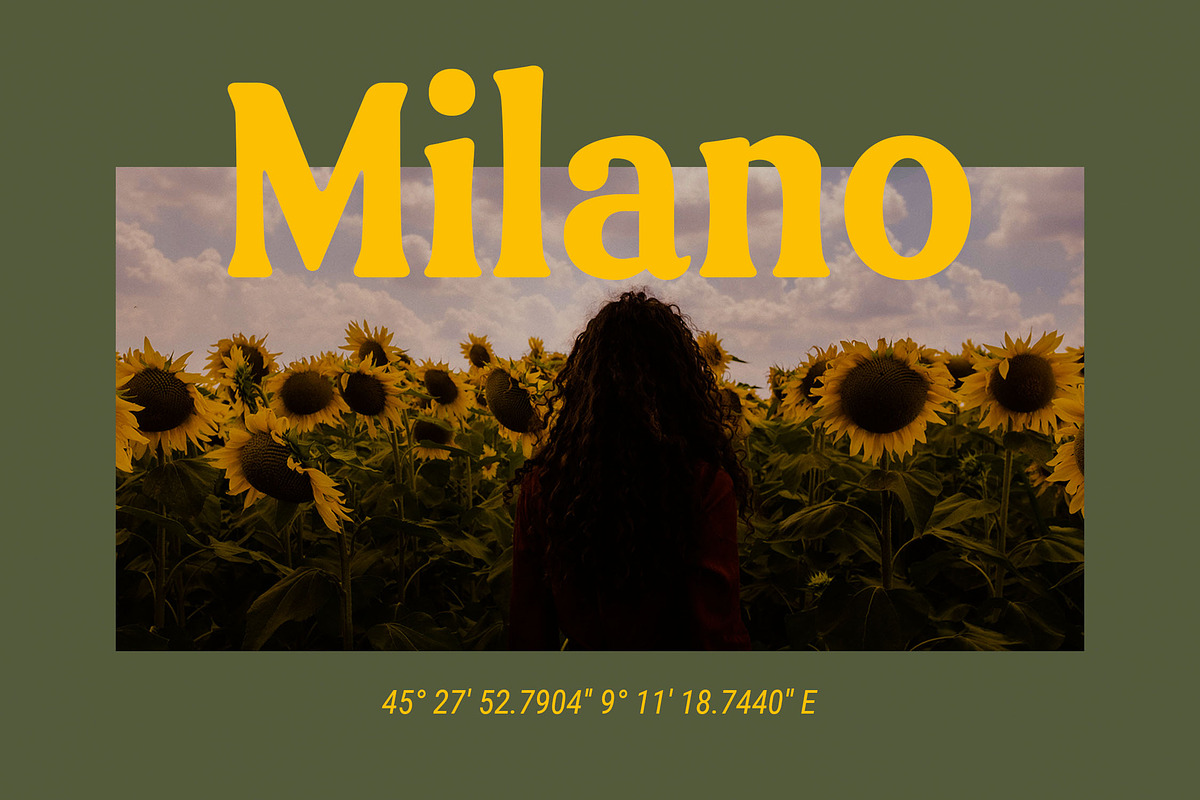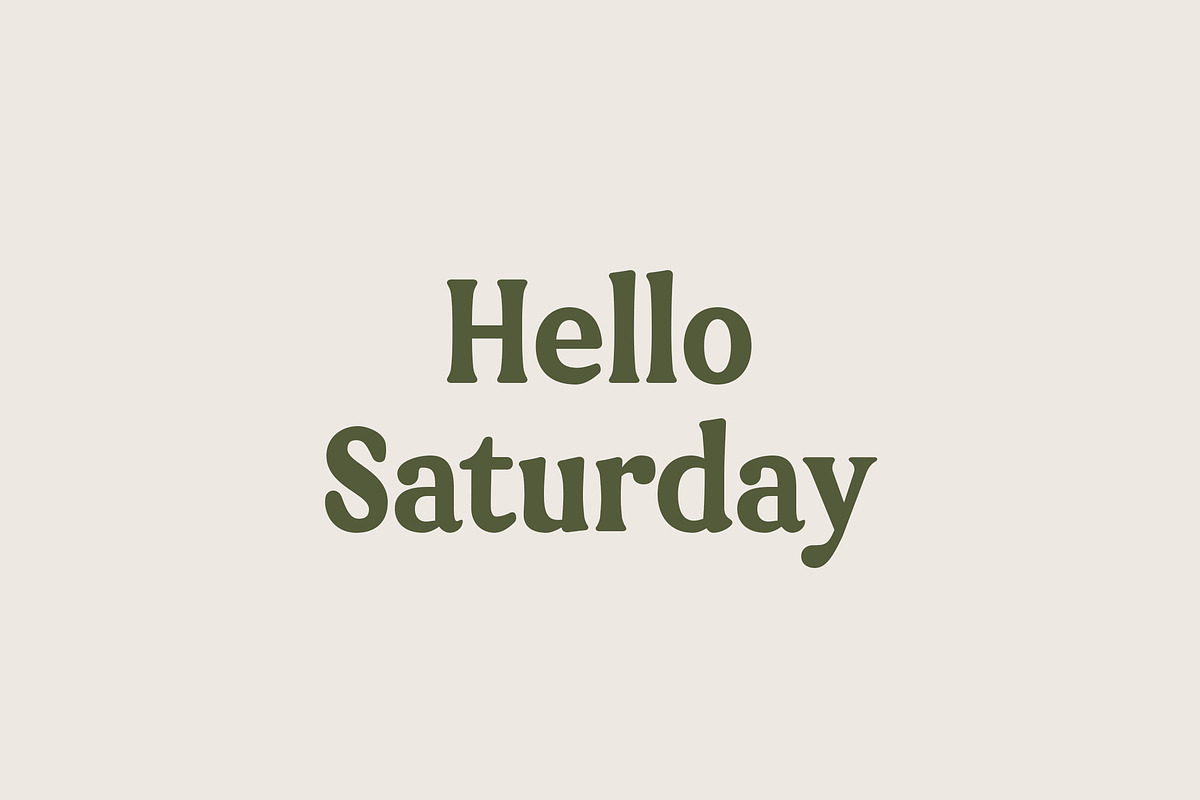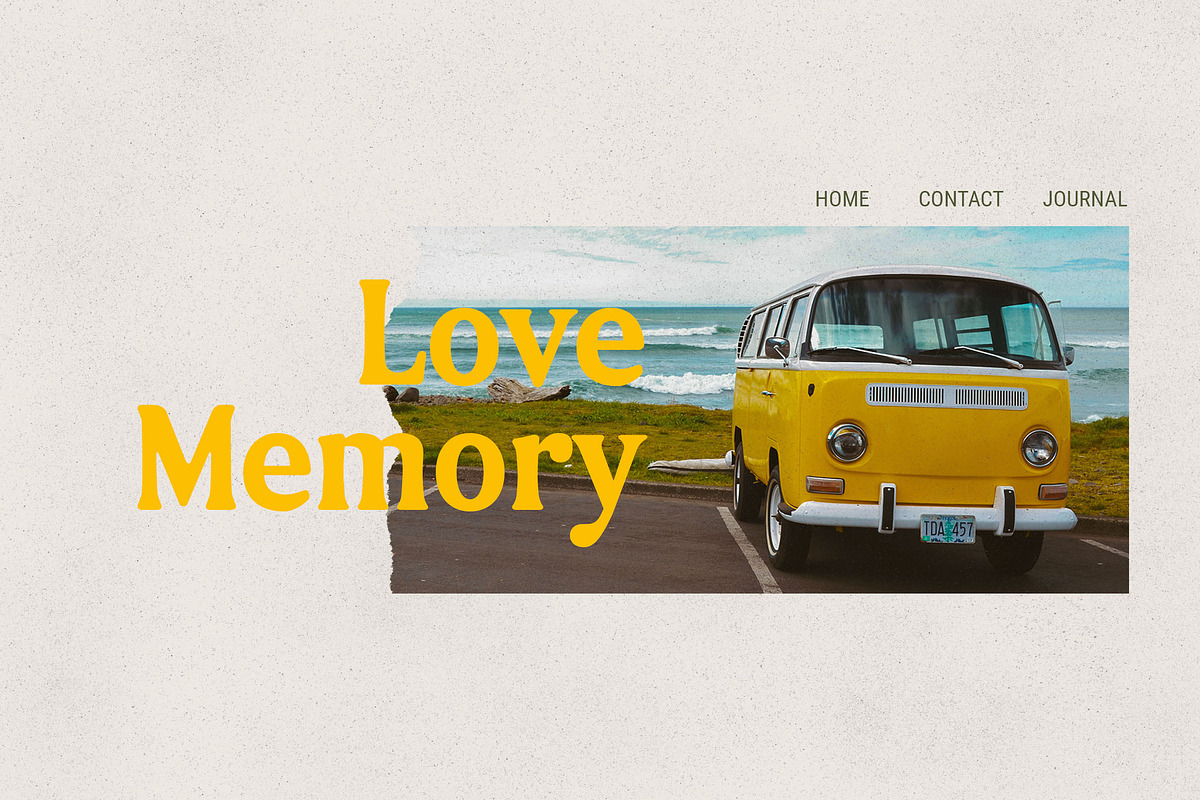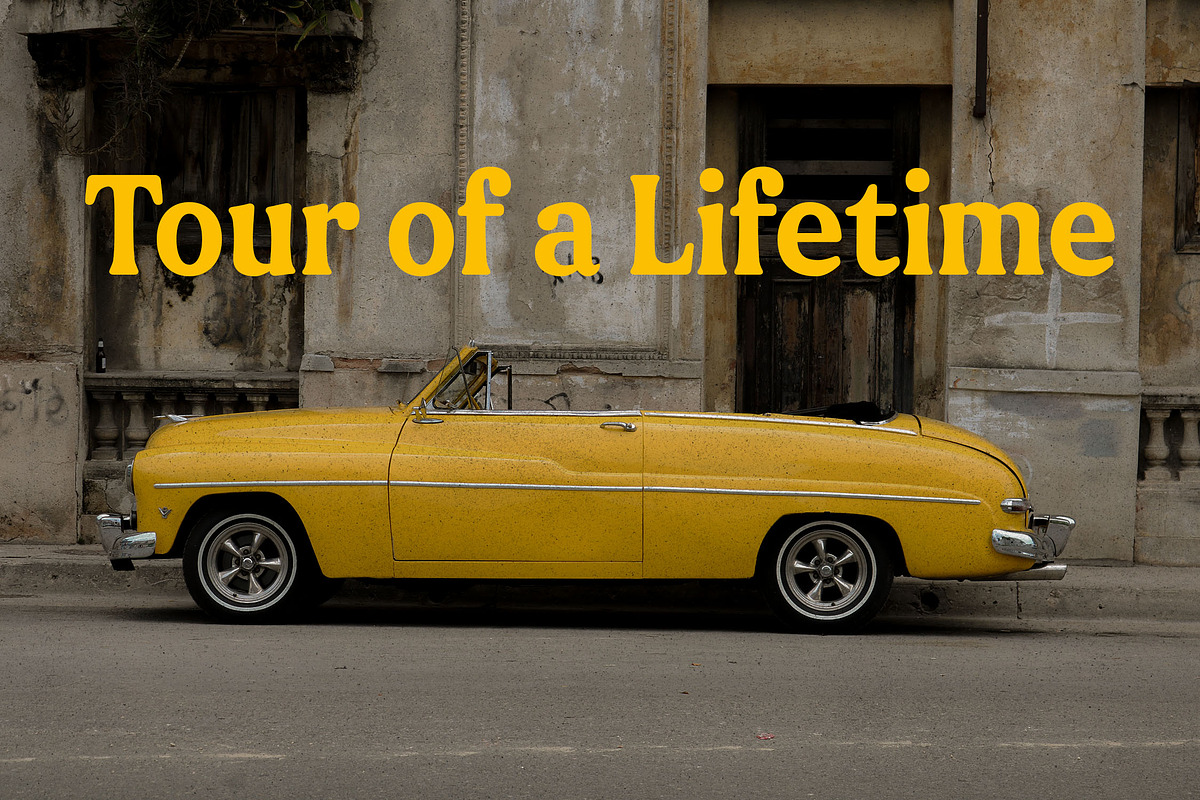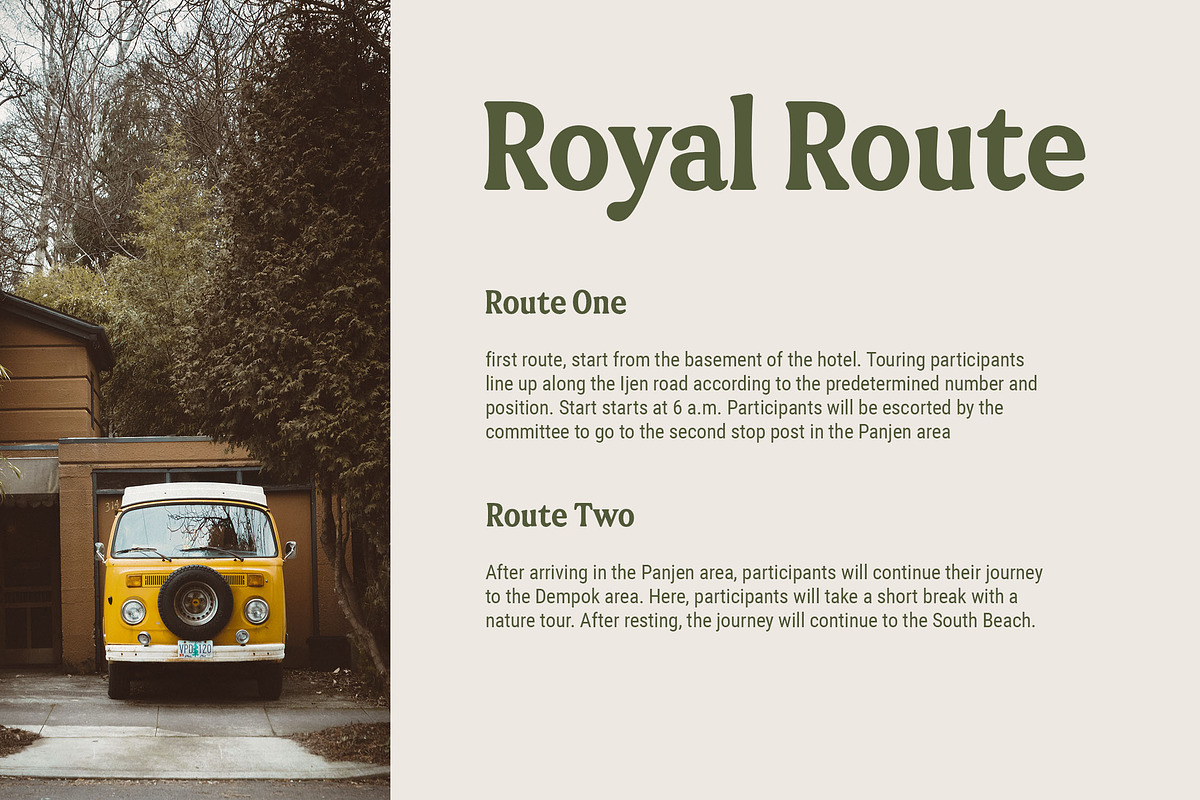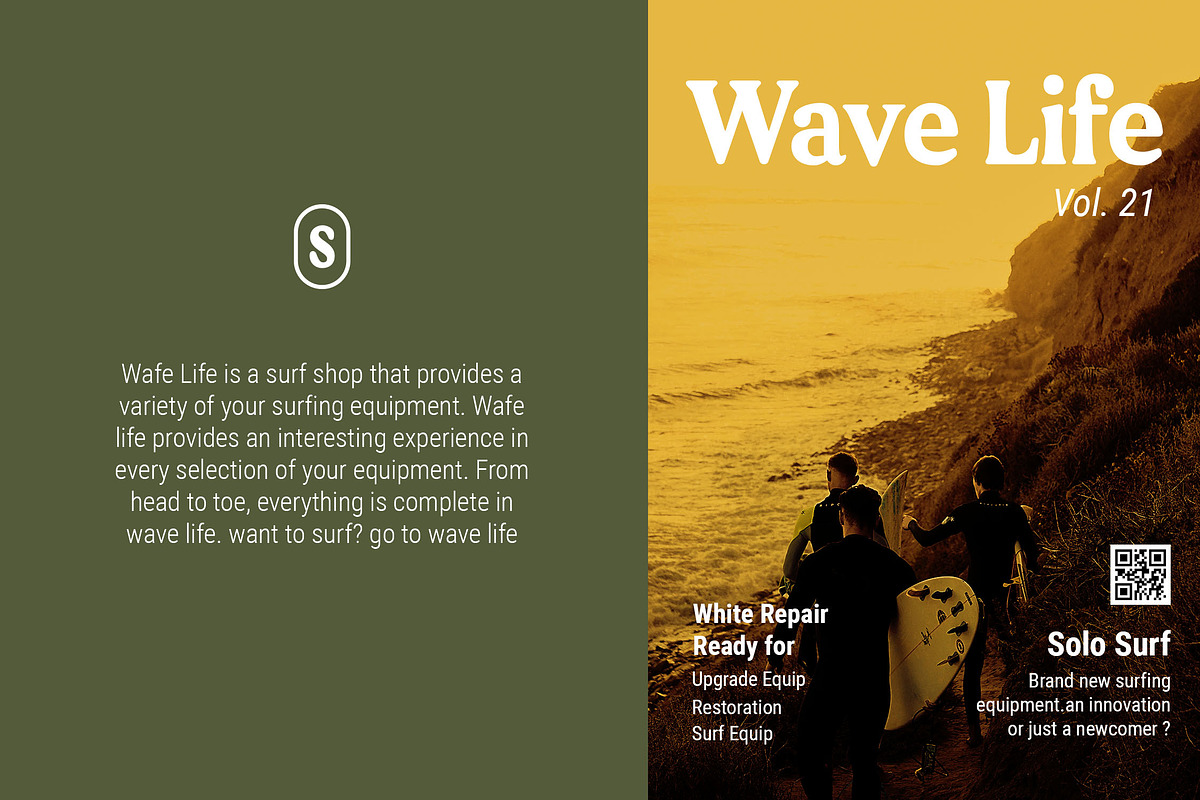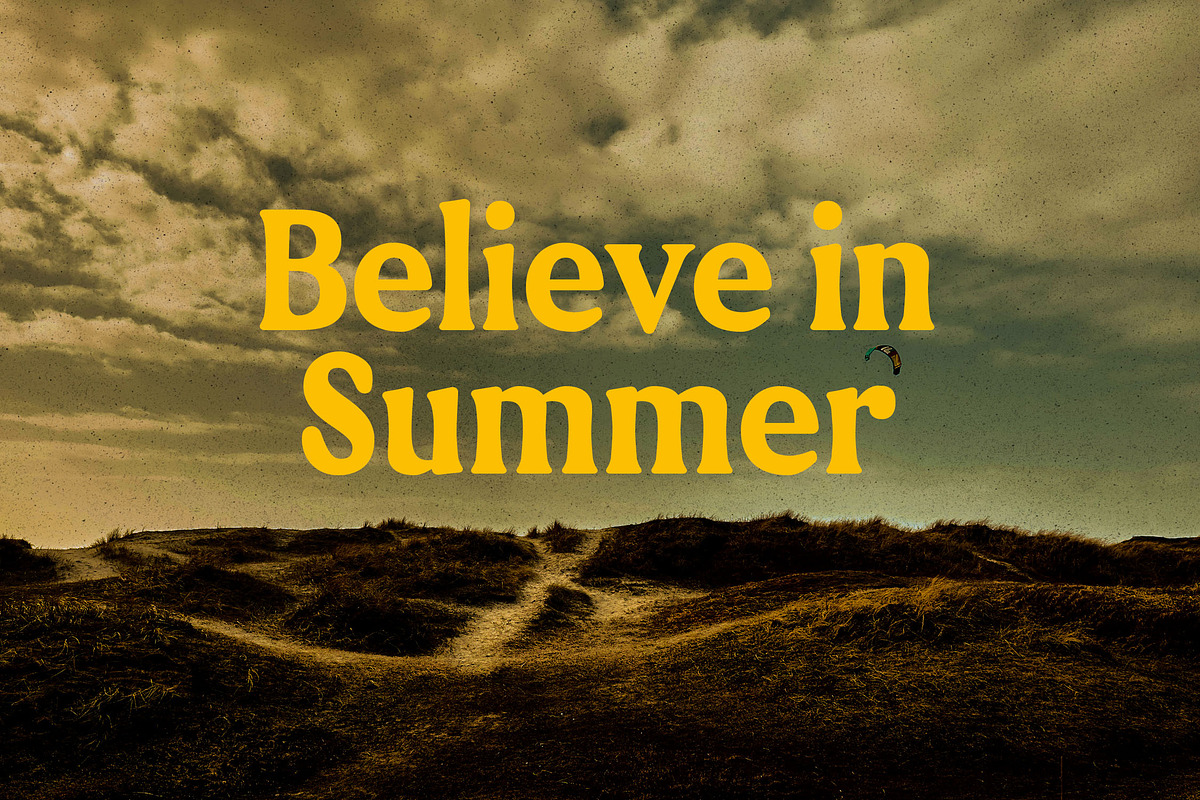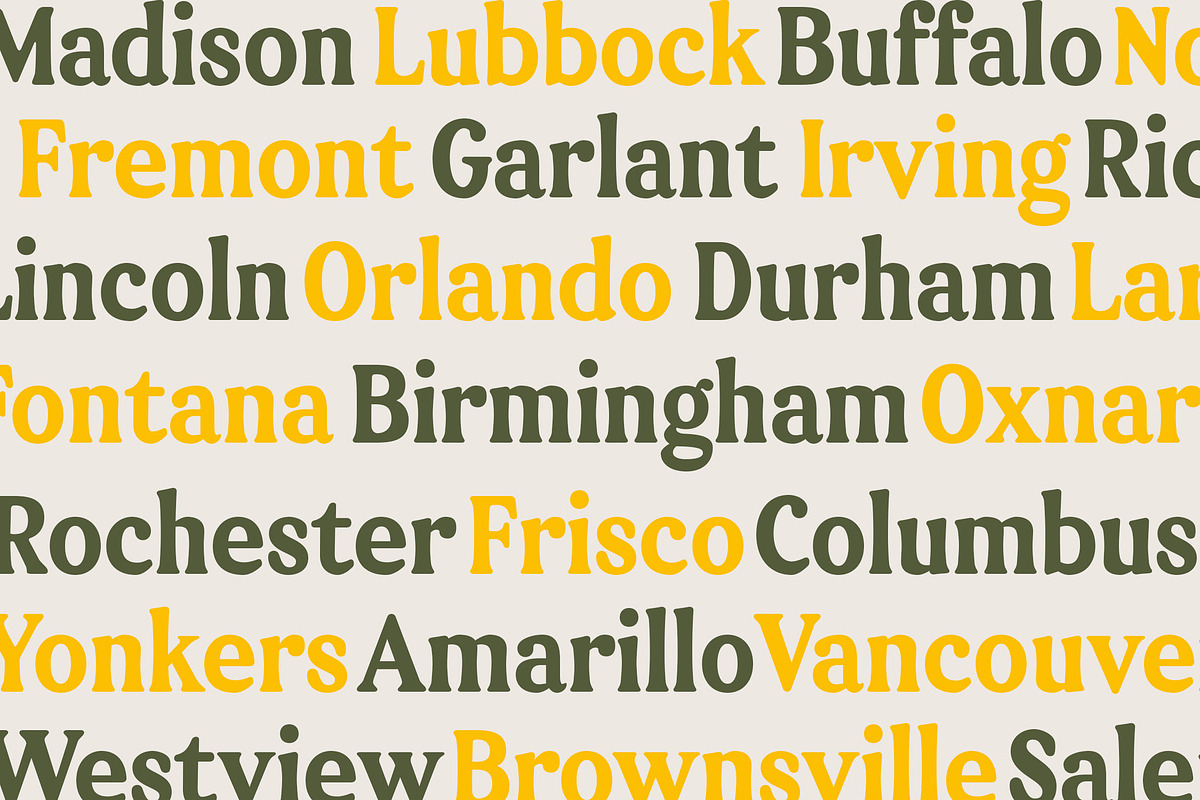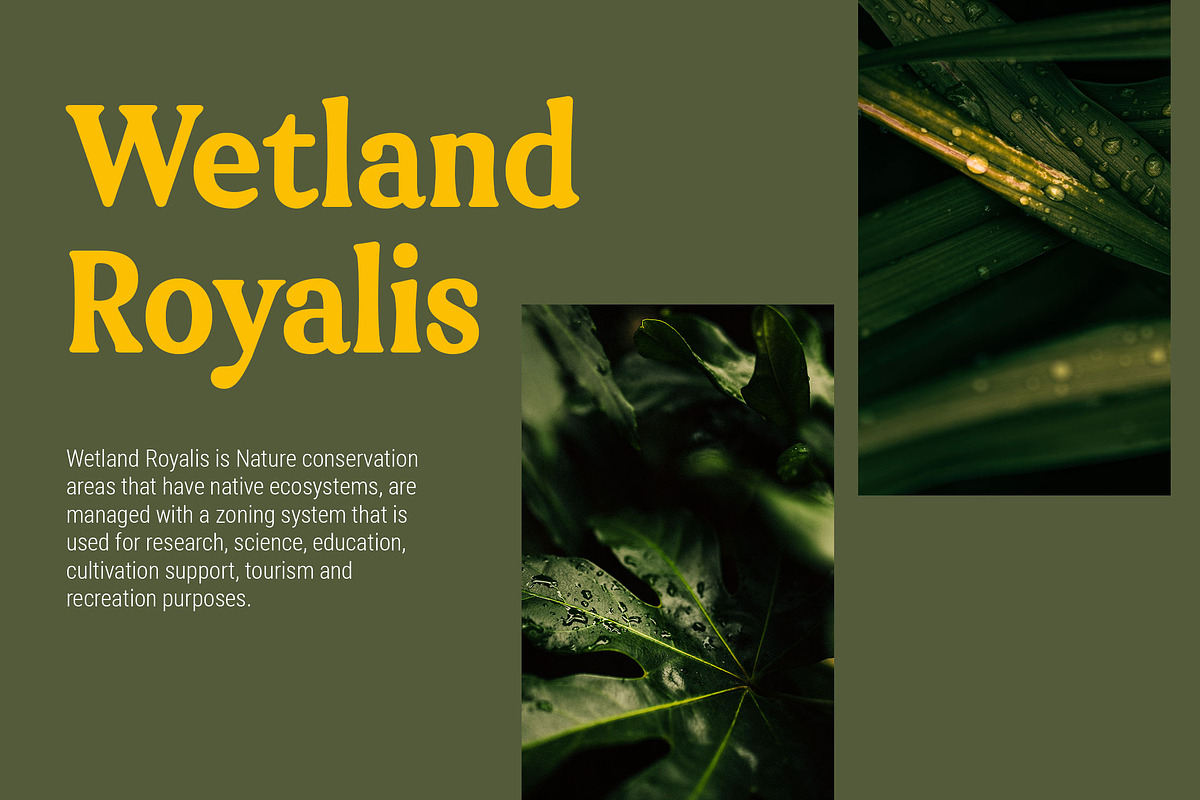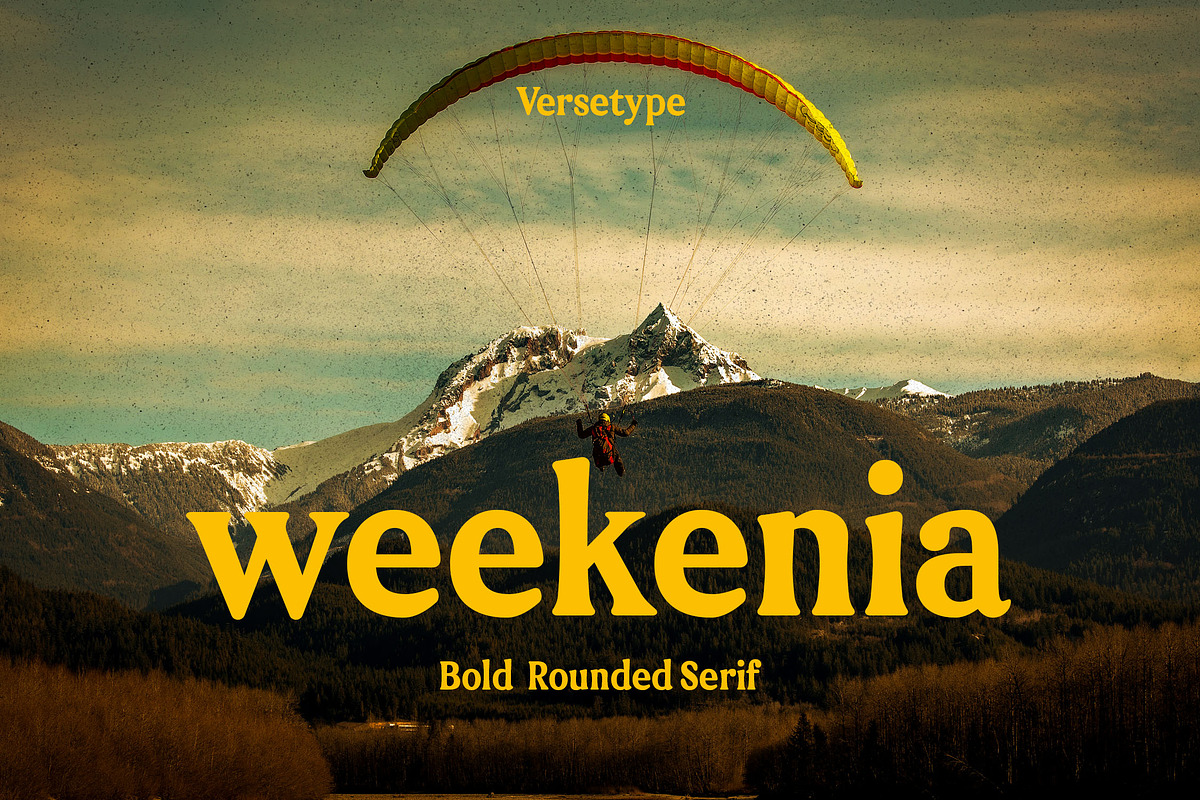
Weekenia Bold Rounded
Weekenia is a bold font that has a rounded serif. This combination makes Weekenia stand out for your design projects.
Weekenia also has a friendly impression with the use of rounded edges. It is suitable for the needs of branding design, logo branding, content writing design, social media design, magazines, packaging, as well as youtube thumbnails.